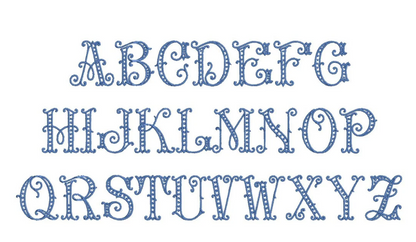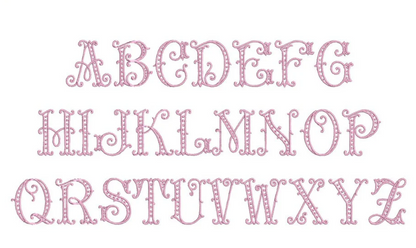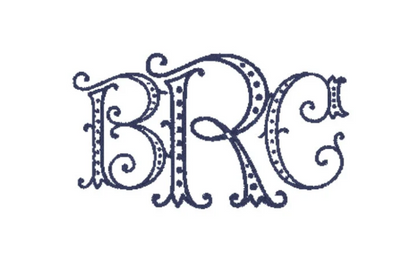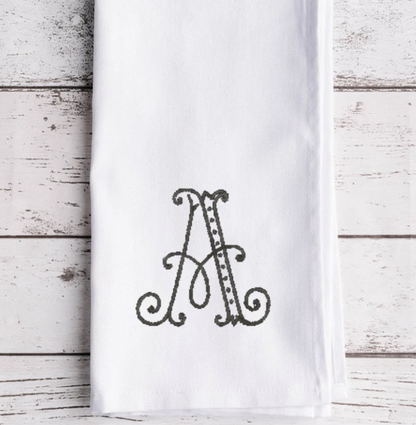
Fancy Embroidery Font, Machine Embroidery Monogram Font
Fancy One Letter or Monogram Font Machine Embroidery Design - with dot design details - open font
This font contains 3 letter sizes that are approximately 1, 2, 3, and 4 in
To use as a single letter choose one size.
To use as a monogram font, use a 2 of one size and 1 of the other. (ex. for a 4in monogram use the 4 in center and 3 in sides.)
*Sizes are approximate and vary slightly between letters.